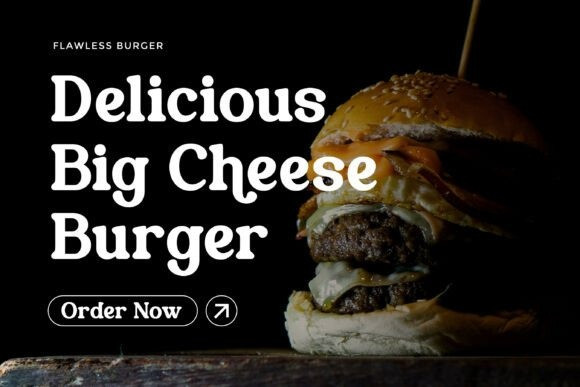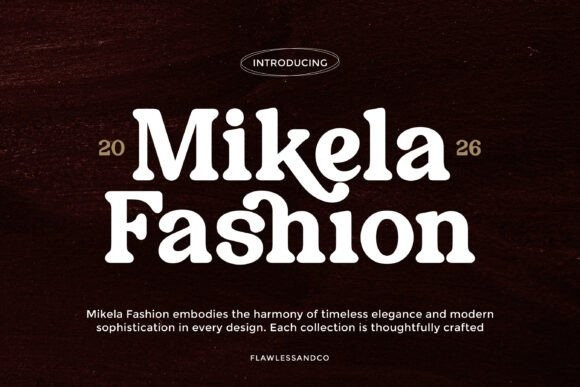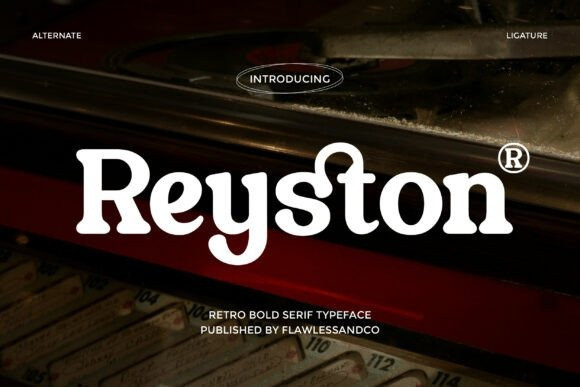
Reyston Font
Reyston Font is a retro bold serif font that blends vintage character with an elegant visual style. Designed with strong serif details, bold strokes, and refined curves, Reyston delivers a striking typographic presence while maintaining a touch of sophistication and charm. Inspired by classic retro aesthetics, this font captures a nostalgic feel while still looking stylish and modern. Its bold structure makes it perfect for eye-catching headlines, branding, and display designs that need both strength and elegance.